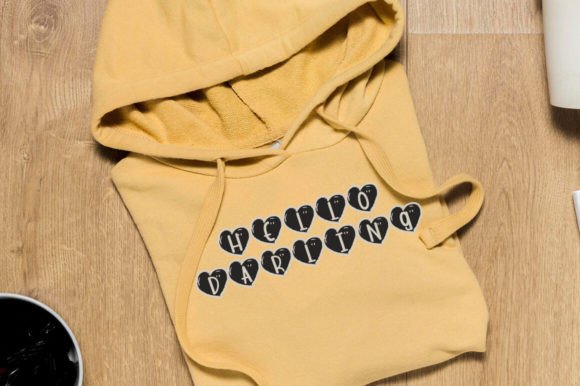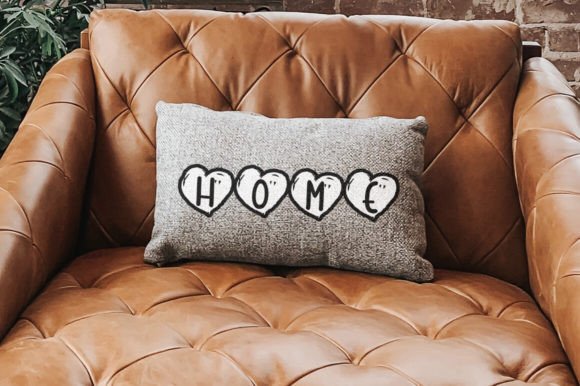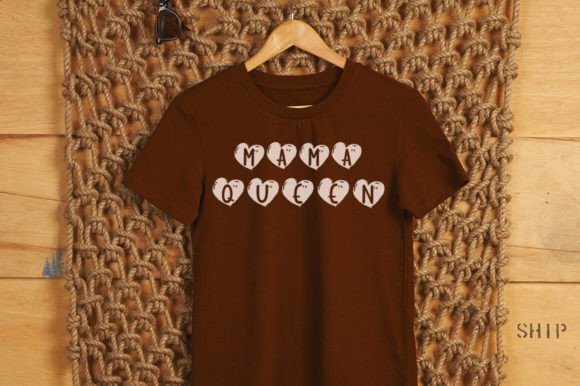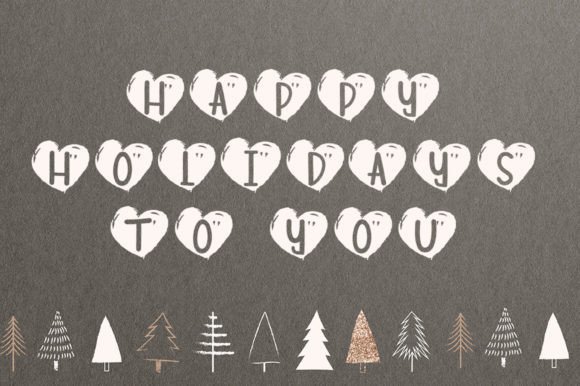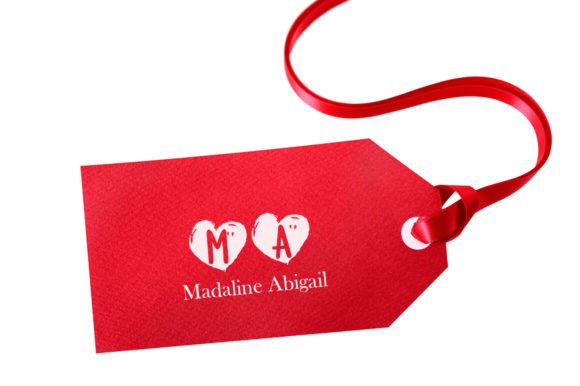
Introduction to Heart Glamor Font
Introducing the Heart Glamor font, which is a font with a sweet love look and luxurious characters.
Heart Glamor can be used for various types of design needs such as branding materials, social media, quotes, invitations, business cards, film covers, and more .
Key Features of Heart Glamor Font